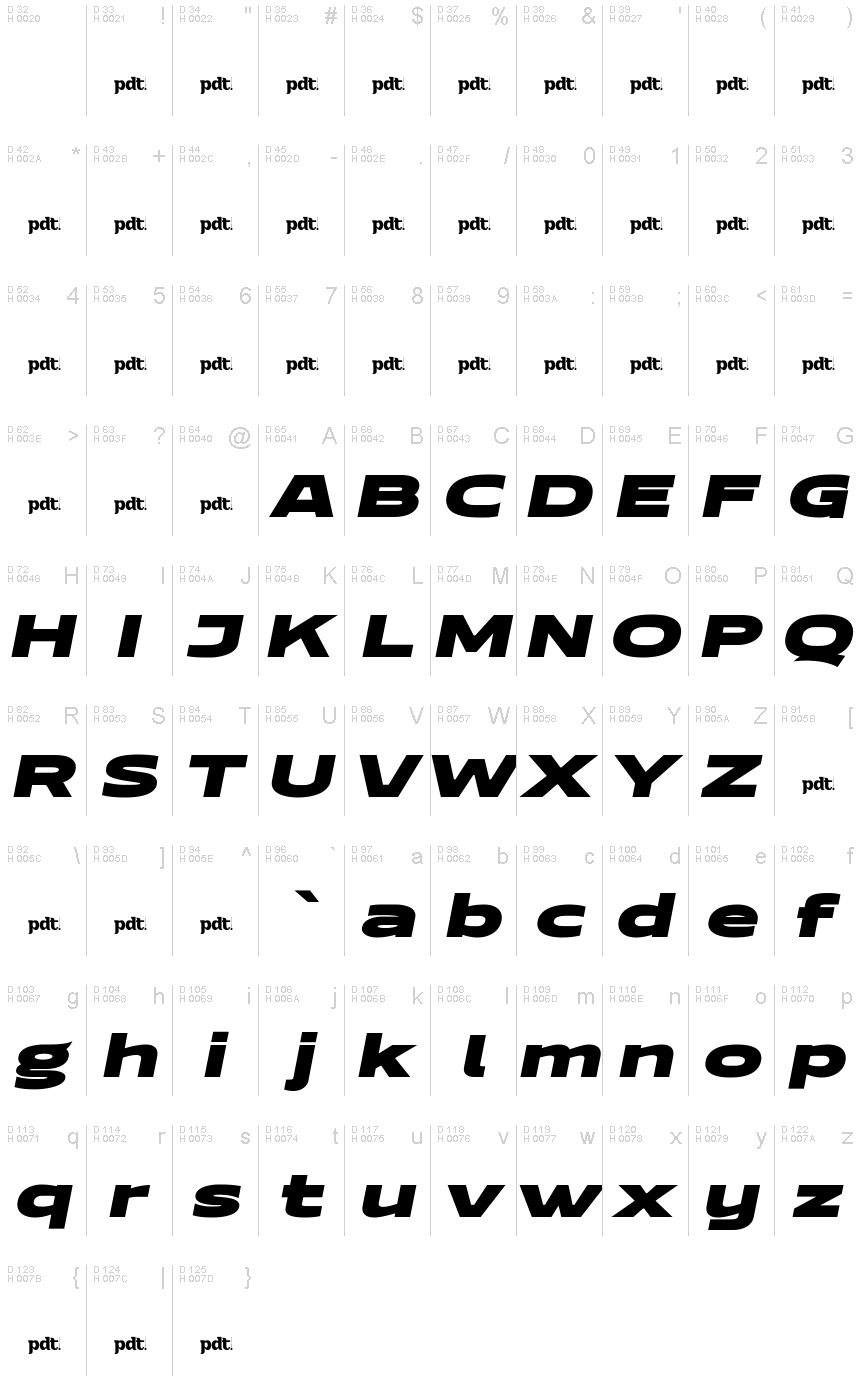
REDOB Regular Slant
Redob Slant font, part of the Redob family by productype, is a bold, expanded typeface that commands attention. With its striking slanted design and robust weight, this free font offers a dynamic look perfect for modern design projects. The expanded width enhances readability, making it ideal for headlines and brand identity work.
Whether you're looking to download a new font for eye-catching posters or dynamic web designs, Redob Slant provides versatility combined with contemporary flair. Embrace its bold character to elevate your creative endeavors and leave a lasting impression on any audience.